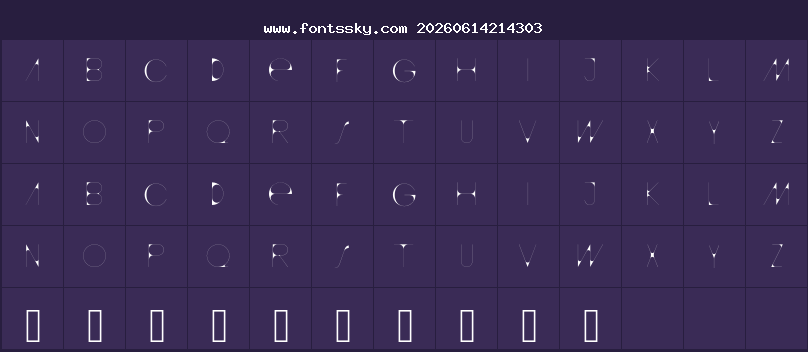
• Font Name: accent normal
• Full Font Name: accent-normal
• PostScript Name: accent-normal
• Character Count: 53
About accent normal.ttf
accent normal.ttf is a modern, elegant sans-serif font designed for ultimate readability and visual harmony. Perfect for branding, headlines, web design, and print materials.